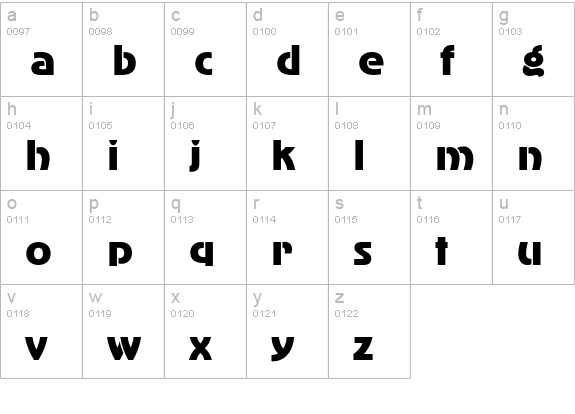
PT AdverGothic Cyrillic Font Details
Introducing PT AdverGothic Cyrillic font, a modern and stylish typeface designed to make an impact in advertising and branding projects. This versatile font features clean lines and sharp angles, perfect for creating eye-catching headlines and logos. With its sleek and contemporary aesthetic, PT AdverGothic Cyrillic is sure to capture the attention of your audience and elevate your designs to the next level. Best of all, PT AdverGothic Cyrillic font is available for free download at FontsMarket.com. This means you can start using this impressive font in your projects right away, without any cost involved. Don't miss out on the opportunity to add this dynamic typeface to your font collection and take your designs to new heights. Download PT AdverGothic Cyrillic today and unleash your creativity!